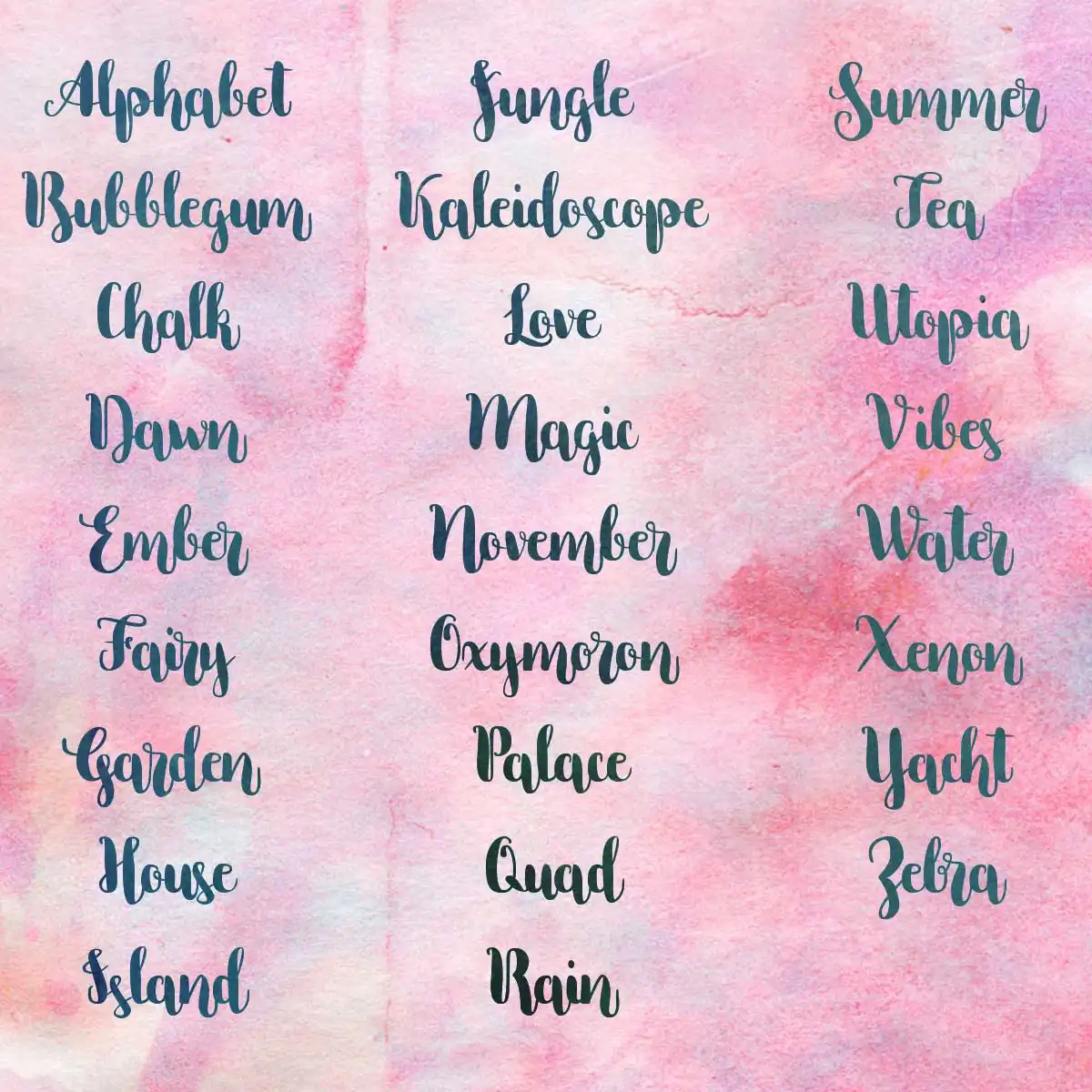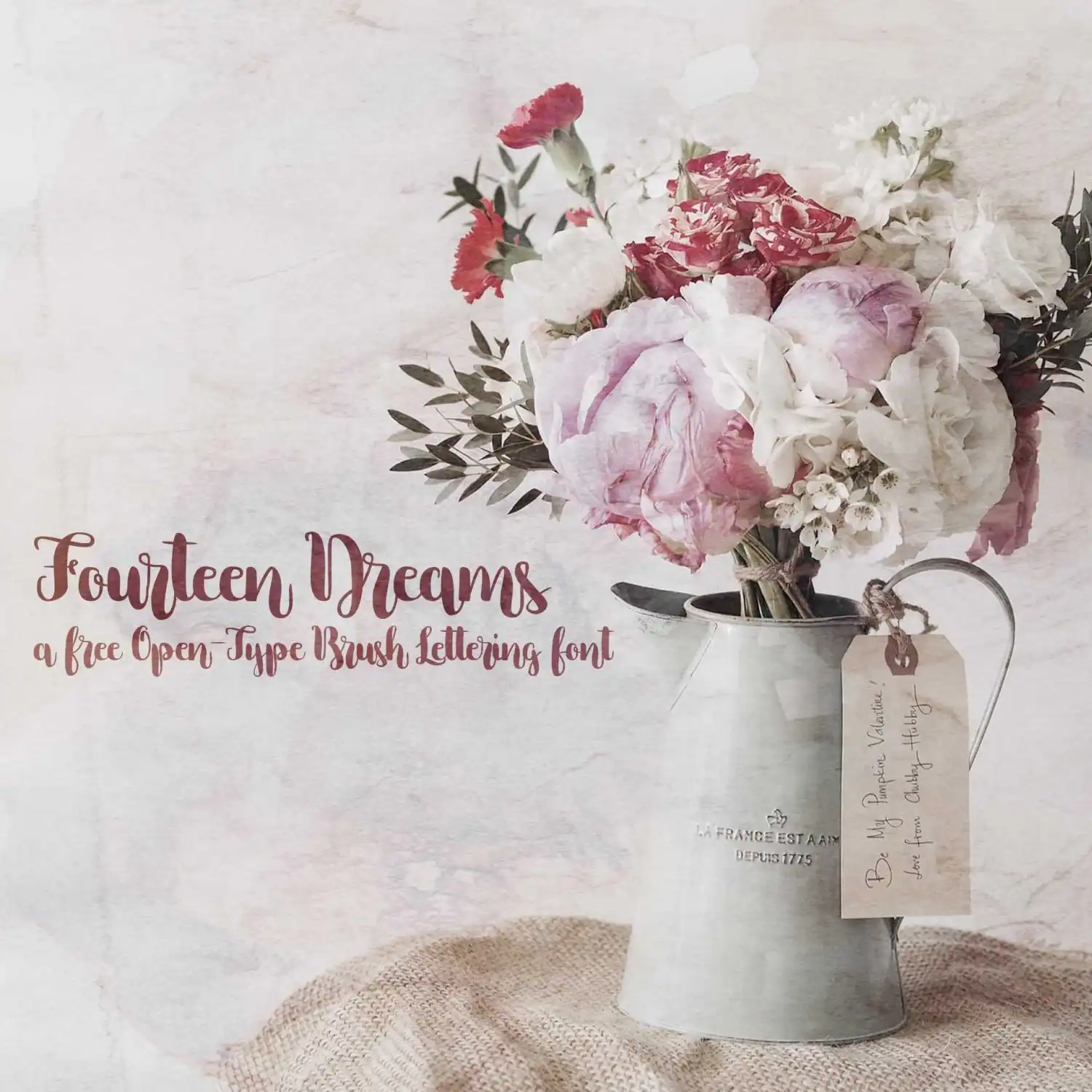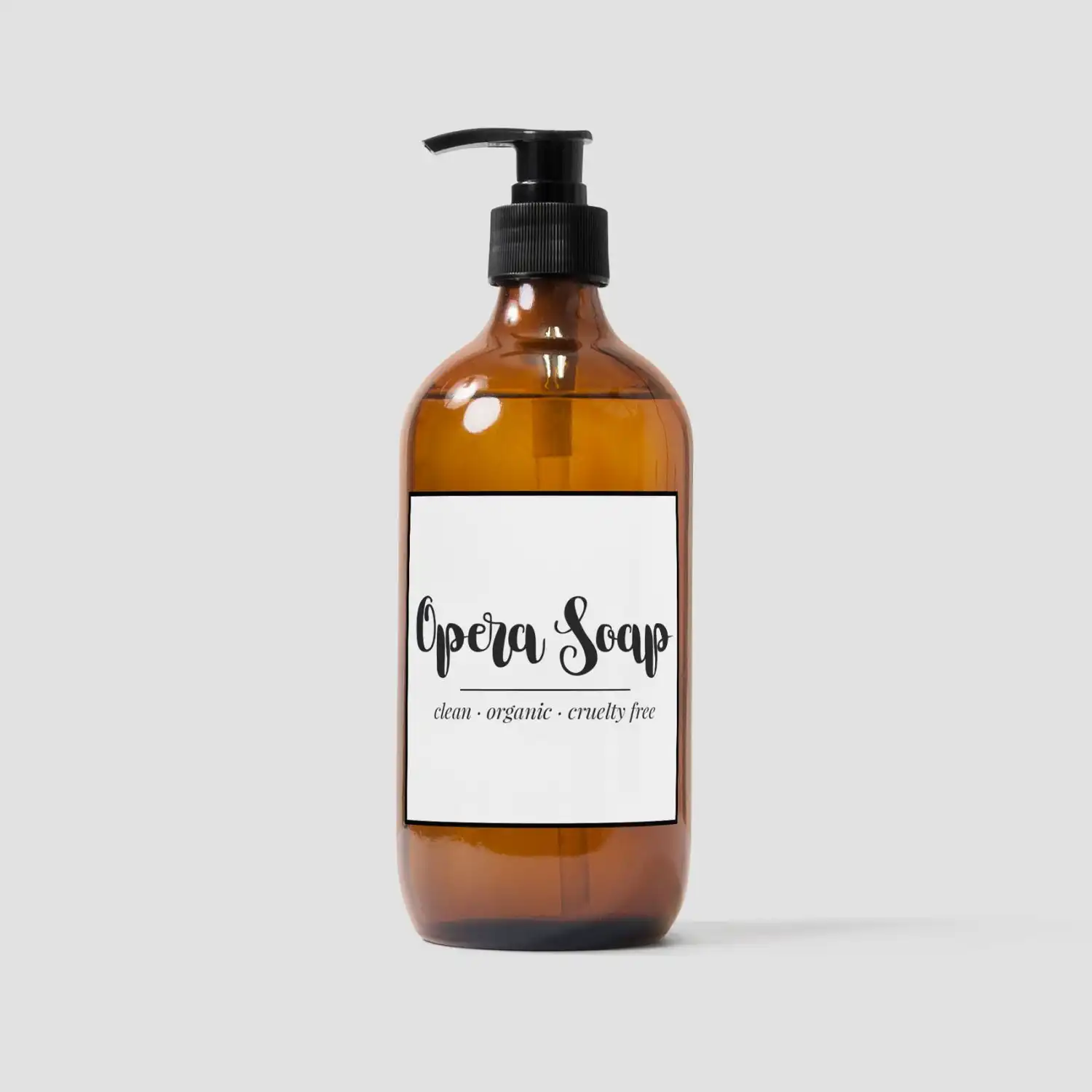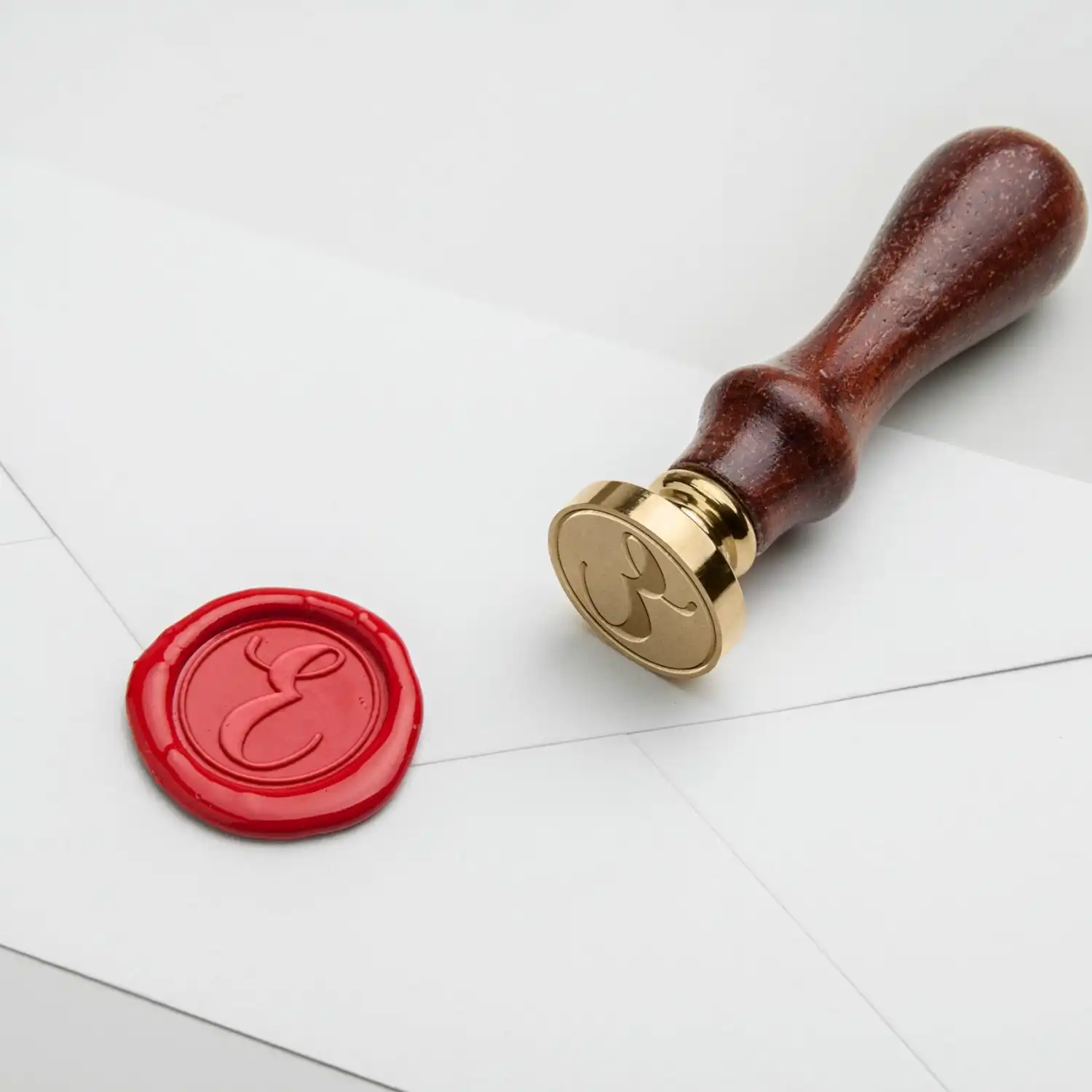
Introducing the Fourteen Dreams Brushlettering Font, a beautifully crafted typeface that captures the essence of hand-lettered designs. This font is perfect for a variety of creative projects, including invitations, branding, and social media graphics.
With its elegant strokes and unique character, Fourteen Dreams brings a personal touch to your designs. The font is easy to install and compatible with most design software, making it a versatile addition to your font collection.
Whether you’re a professional designer or a DIY enthusiast, this font will elevate your projects and inspire creativity.